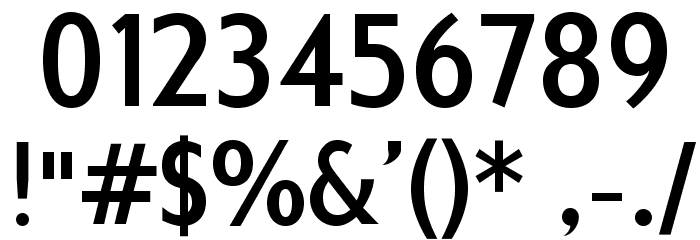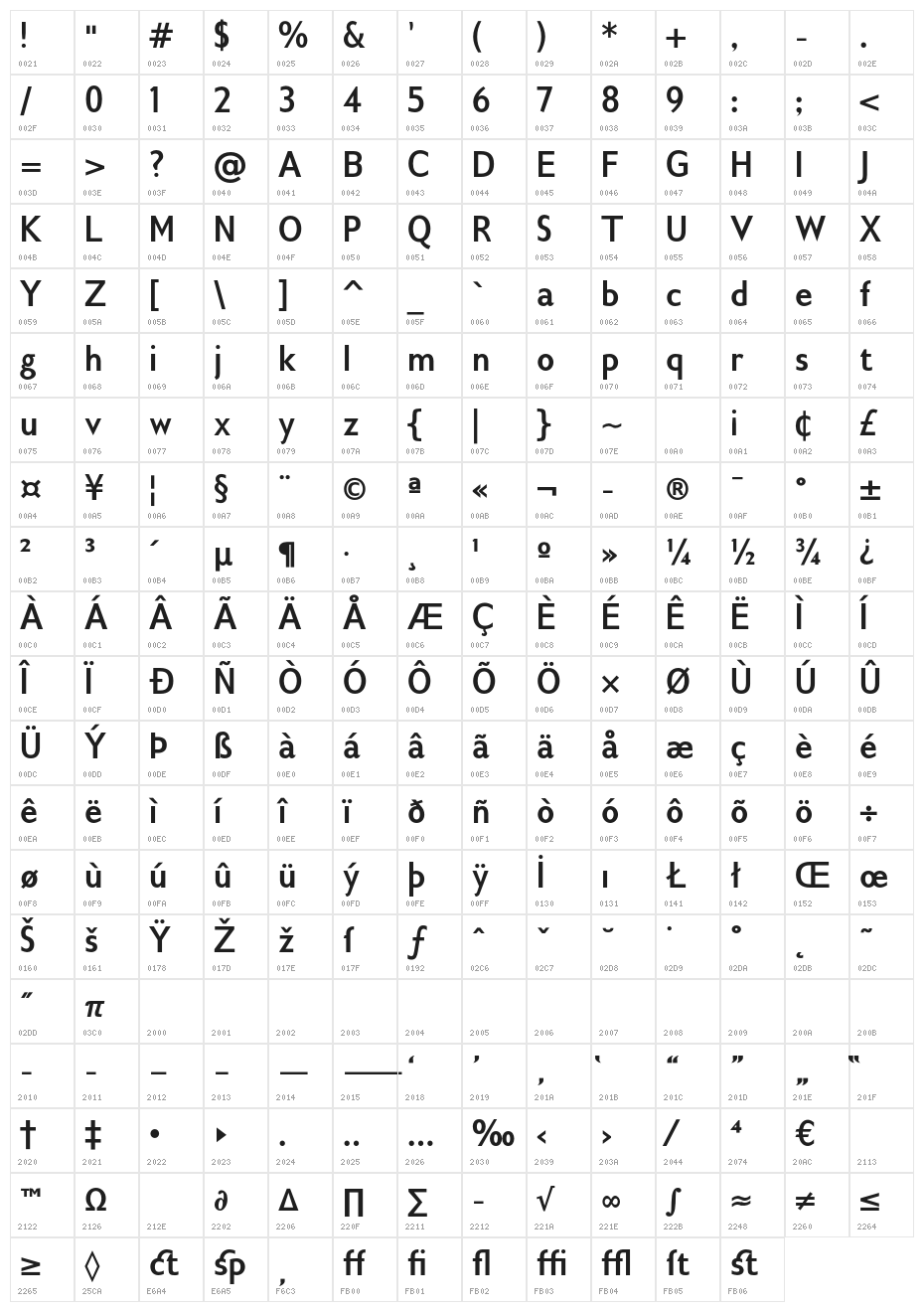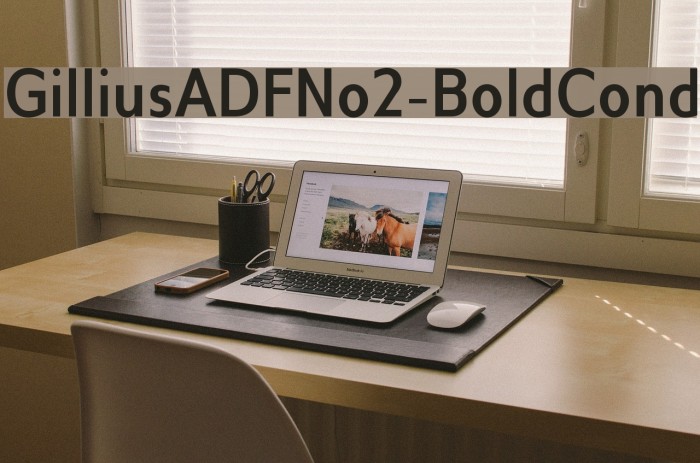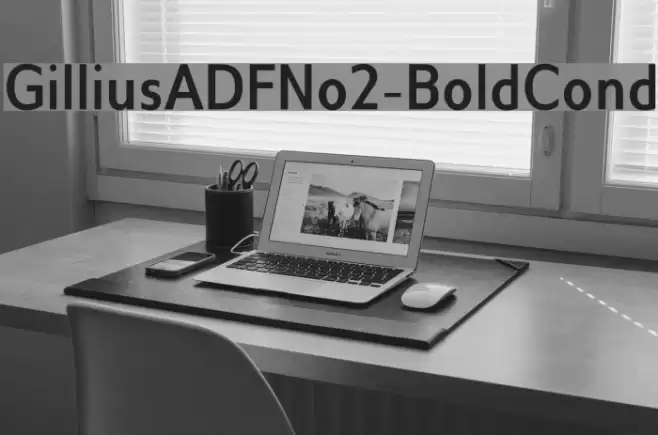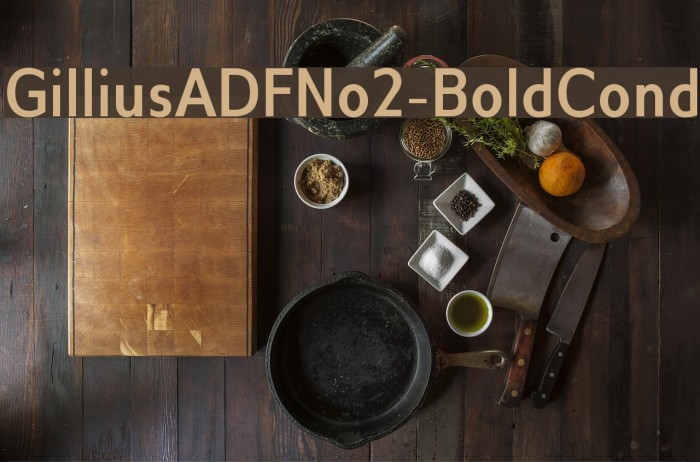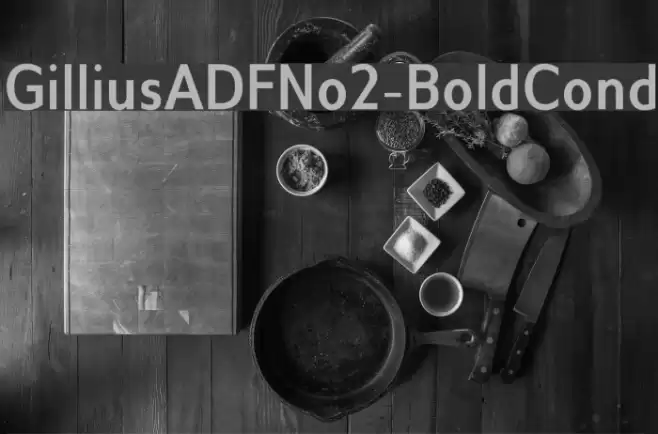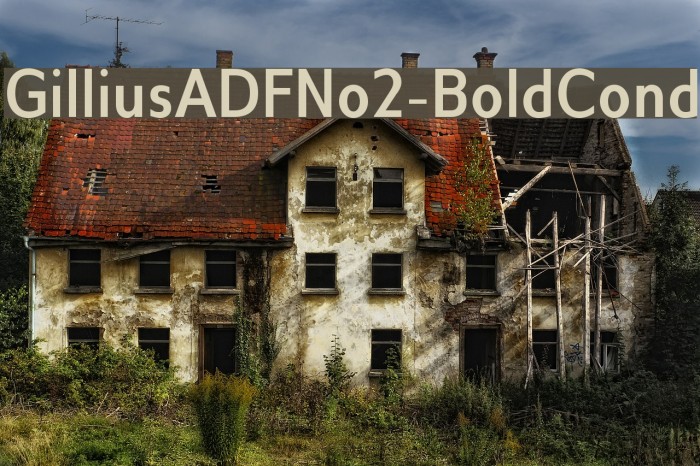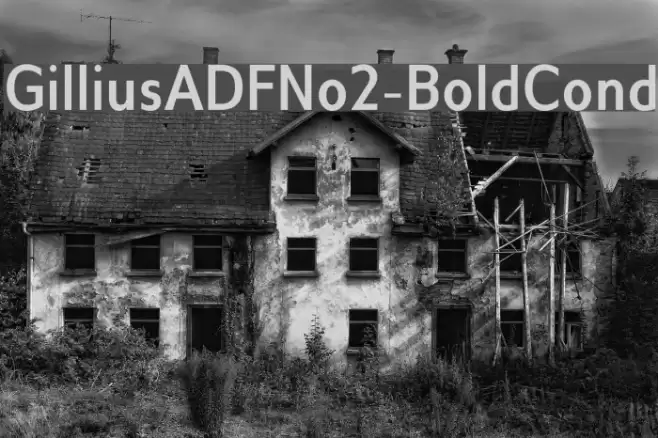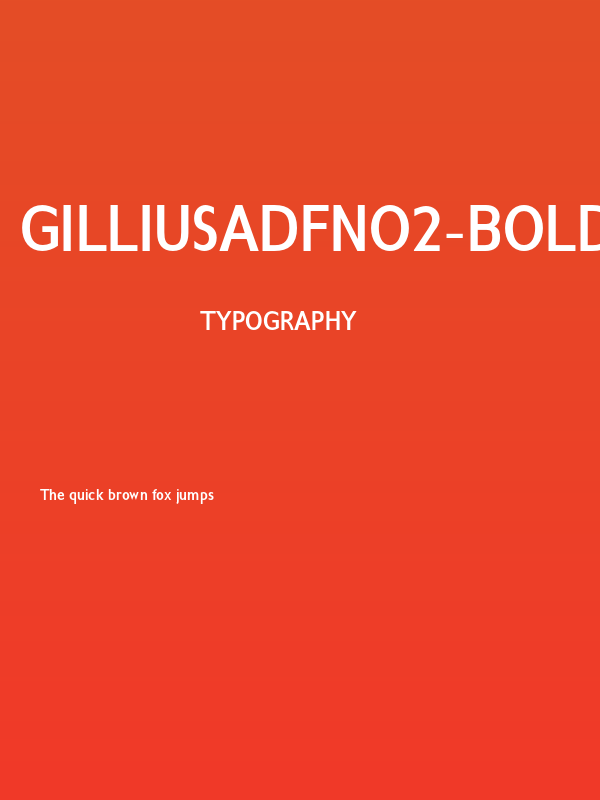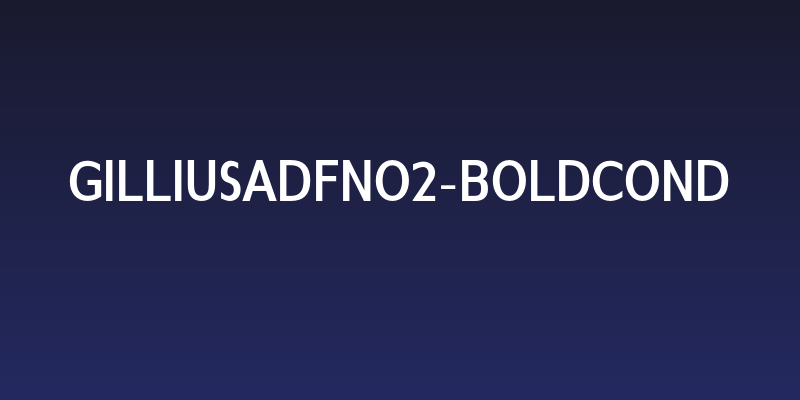
GilliusADFNo2-BoldCond Font
GilliusADFNo2-BoldCond Description
This font features a clean and modern sans-serif style with bold and condensed characteristics. The uppercase letters are uniform and strong, providing a sense of stability and confidence. The lowercase letters maintain a consistent height, contributing to a balanced and harmonious appearance. Numbers are clear and legible, making them suitable for various applications. Special characters are well-defined, ensuring versatility in design projects. The overall design is straightforward yet impactful, making it ideal for both digital and print media.
| Proposed Projects | Ideal for branding, advertising, headlines, and digital content where a strong, modern look is desired. |